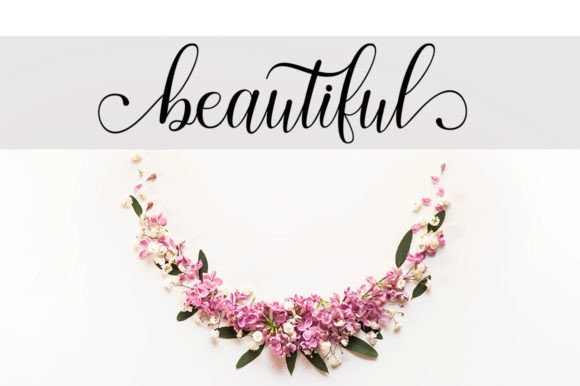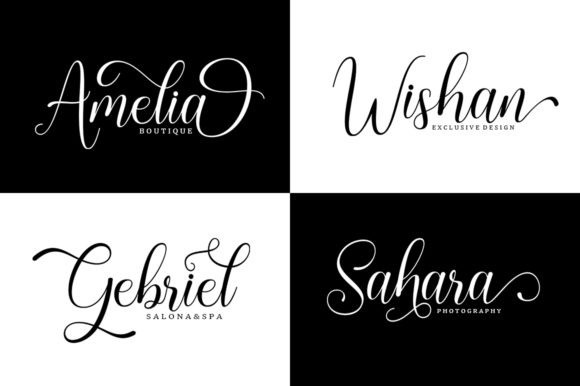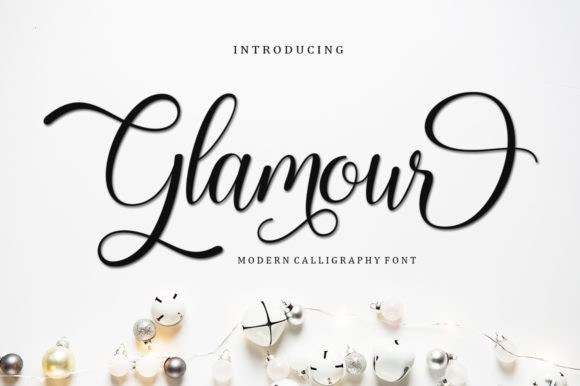
Glamour Font
Hello Everyone, introduce our new product Glamour Calligraphy Font is an incredibly glamourous and rich script font with lovely swashes. Fall in love with its calligraphic style!